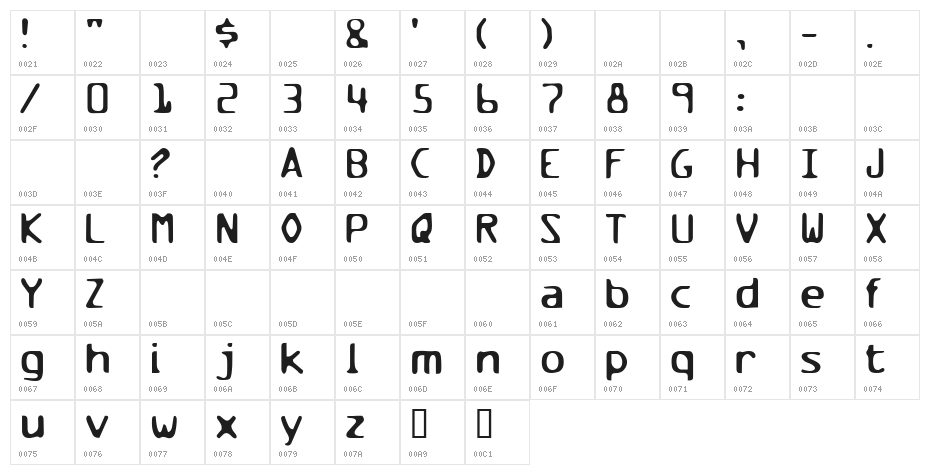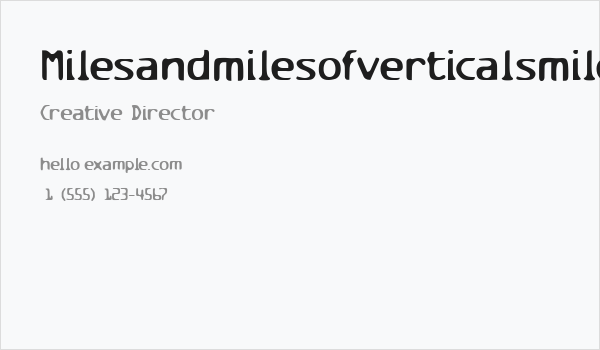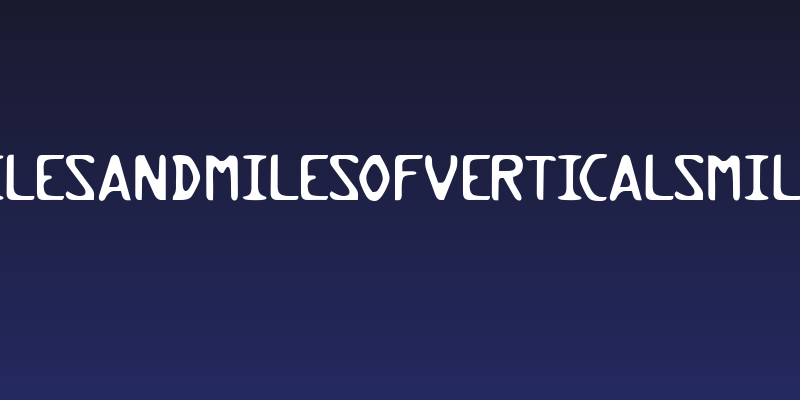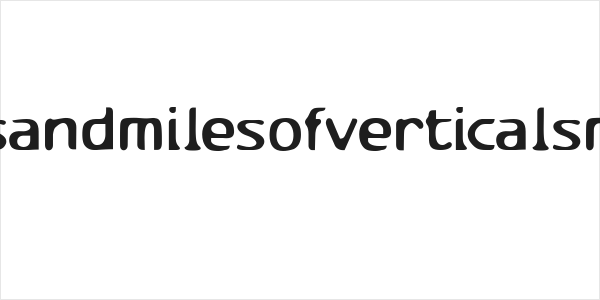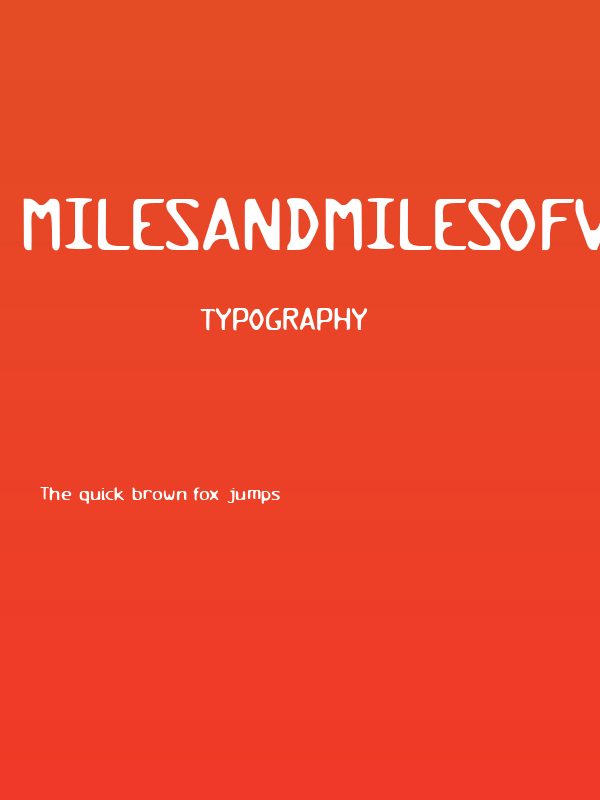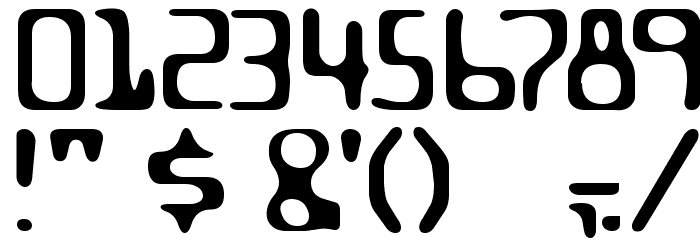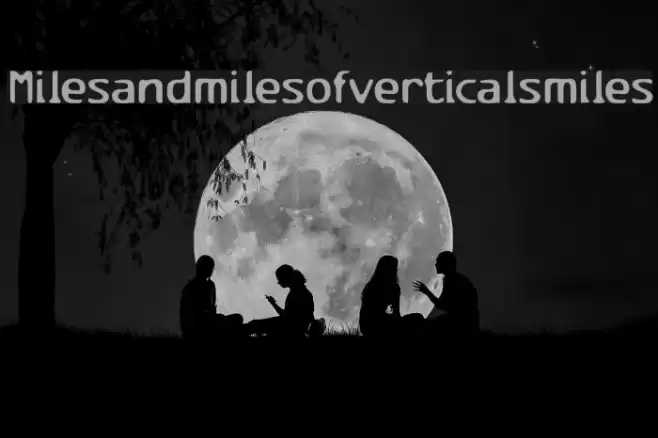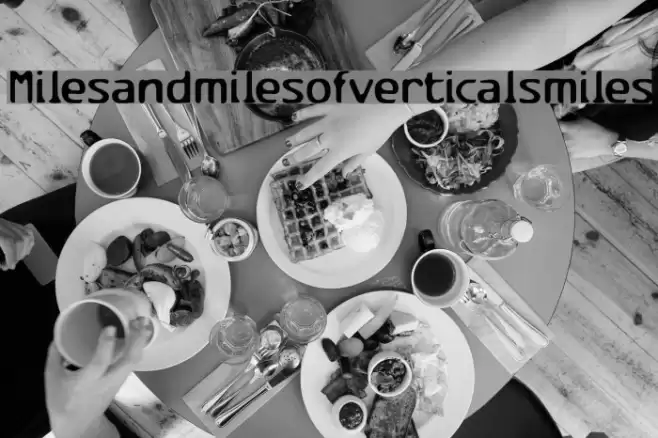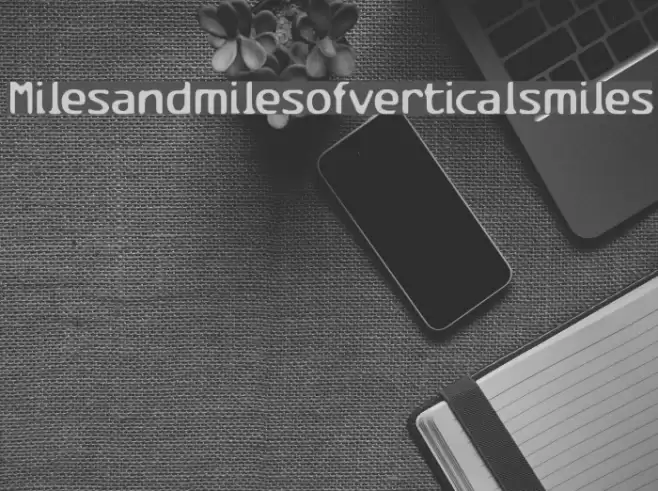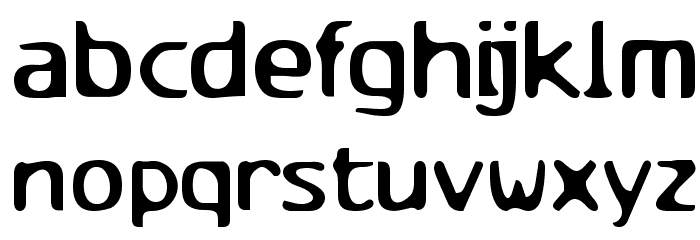
Milesandmilesofverticalsmiles Font
Milesandmilesofverticalsmiles Description
This font features a unique and playful design with rounded edges and a slightly irregular form, giving it a whimsical and approachable appearance. The characters are bold and have a consistent thickness throughout, which adds to the font's charm and readability. The uppercase and lowercase letters maintain a uniform style, with a slight tilt that adds a dynamic feel. The numerals and special characters are equally stylized, ensuring a cohesive look across all glyphs. This font's distinct personality makes it suitable for creative and informal projects.
| Overall Style | Playful, Whimsical |
| Proposed Projects | Ideal for children's books, playful branding, posters, and creative invitations. |